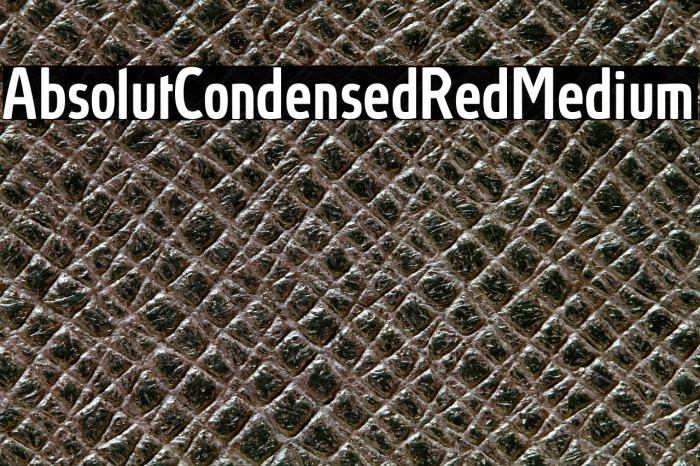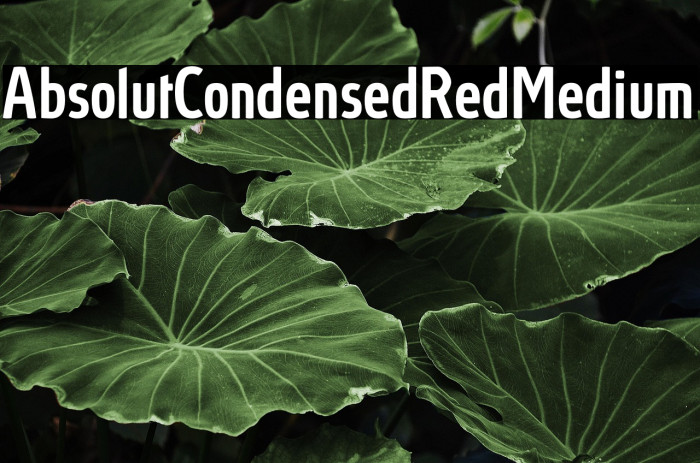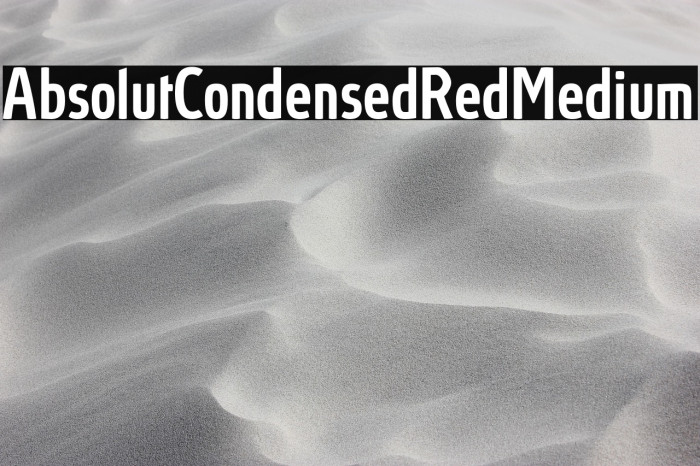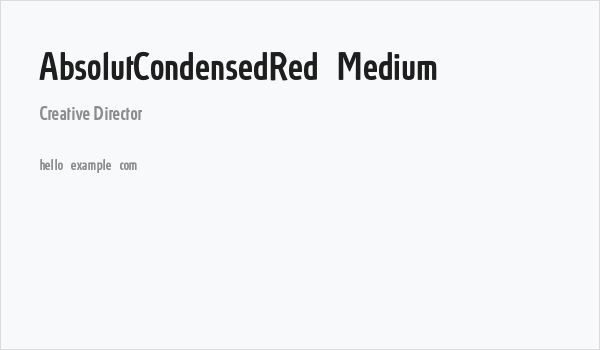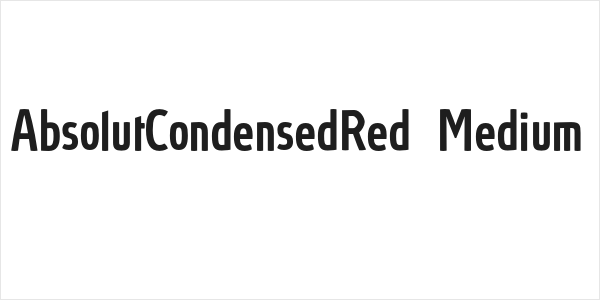
AbsolutCondensedRed-Medium Font
AbsolutCondensedRed-Medium Description
This font features a modern, condensed style with clean lines and a bold presence. The uppercase letters are tall and narrow, creating a sleek and efficient look. The lowercase letters maintain a consistent height, contributing to a uniform appearance. The font's design is straightforward, with minimal embellishments, making it versatile for various applications. Its condensed nature allows for space-saving in text layouts, while the medium weight ensures readability and impact. The overall style is contemporary, suitable for both digital and print media.
| Proposed Projects | Ideal for branding, advertising, headlines, and editorial design where space is limited but impact is needed. |